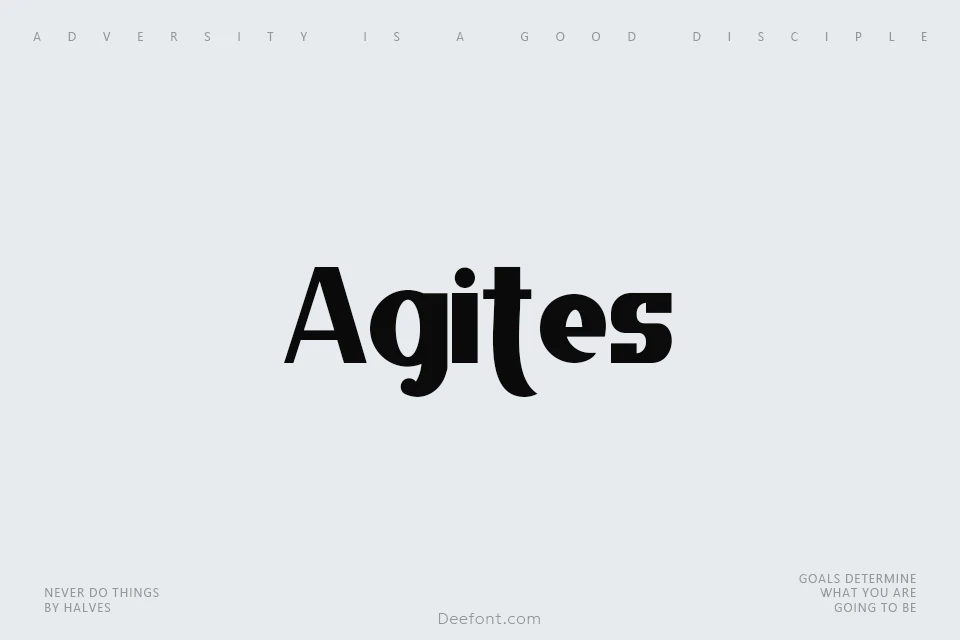
Agites Font
Agites Font is a bold yet sophisticated display typeface with chunky, extended characters, making it perfect for logos, branding, packaging, and more. Its masterful design adds a modern, professional touch, making it an essential choice for creative projects.